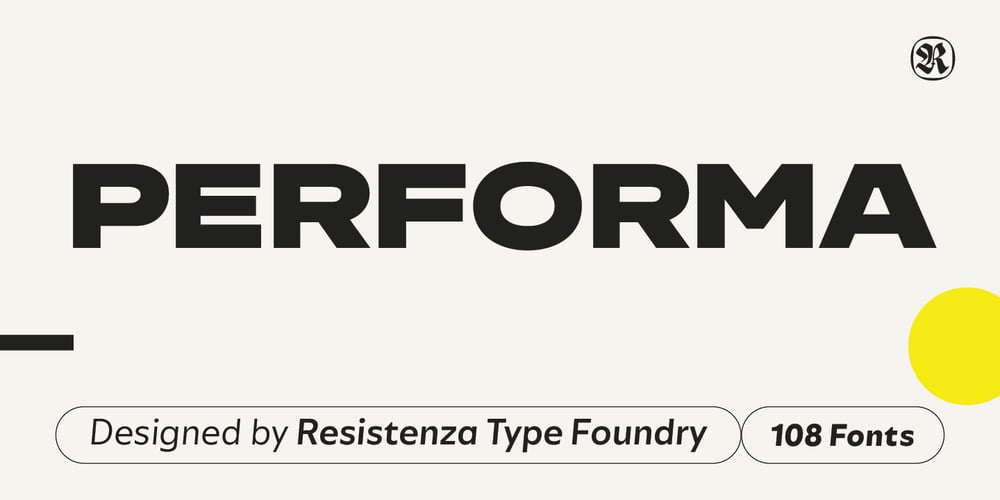
Performa Font Family was designed by Giuseppe Salerno, Paco González and published by Resistenza. Performa contains 116 styles and family package options. Meet Performa, a versatile sans-serif font family that seamlessly unites the structured aesthetics of geometric typefaces with the subtle sophistication of grotesque designs. Featuring an impressive 108-font collection, Performa spans a complete range of weights and widths—from Thin to Black and Compress to Wide. This expansive flexibility makes it an ideal choice for creative and professional projects, offering both style and functionality.Performa was created to handle a wide variety of design needs with ease and reliability. It adapts effortlessly from detailed editorial layouts and striking packaging to dynamic user interfaces and cohesive brand systems. Rounded letterforms and open counterspaces ensure exceptional readability, while unique angular details add energy and character. Balancing geometric precision with a touch of grotesque influence, Performa offers an abundance of stylistic possibilities to tackle any design challenge with elegance and adaptability.Designed with a focus on clarity and readability, Performa performs beautifully across all mediums, whether on digital screens, in print, or within environmental graphics. Its crisp, refined shapes ensure legibility at any size while adding a modern, approachable feel. This makes Performa perfect for editorial design, branding, web interfaces, and more, delivering a polished yet inviting visual presence.